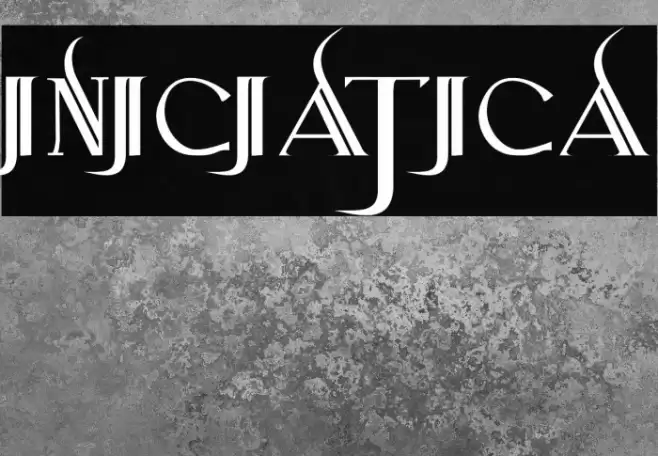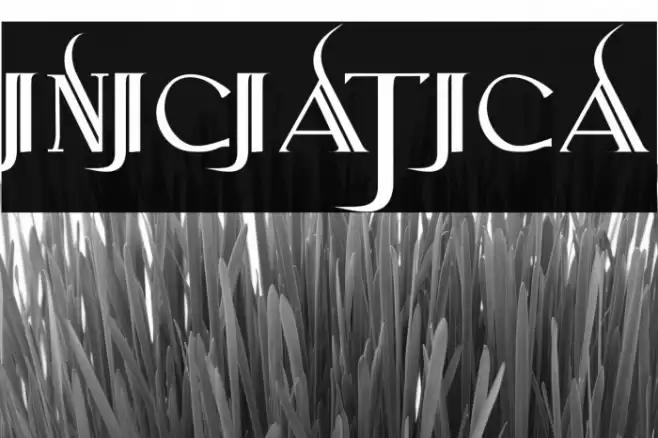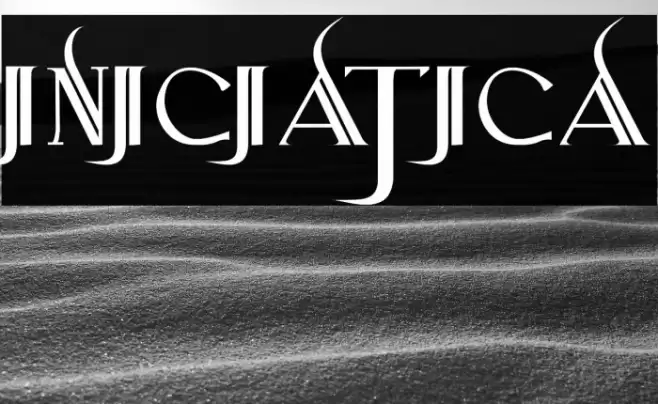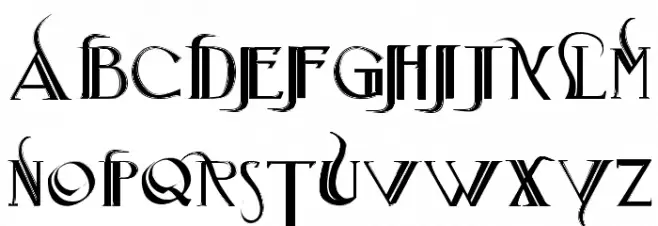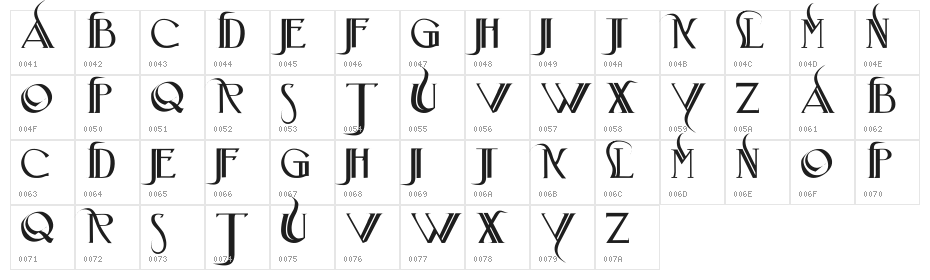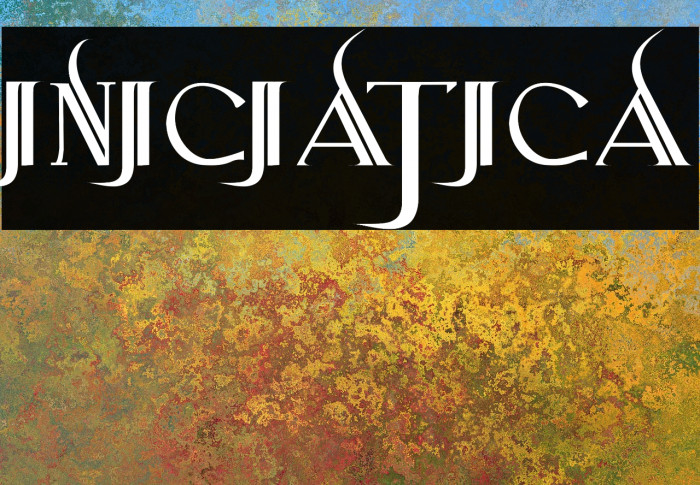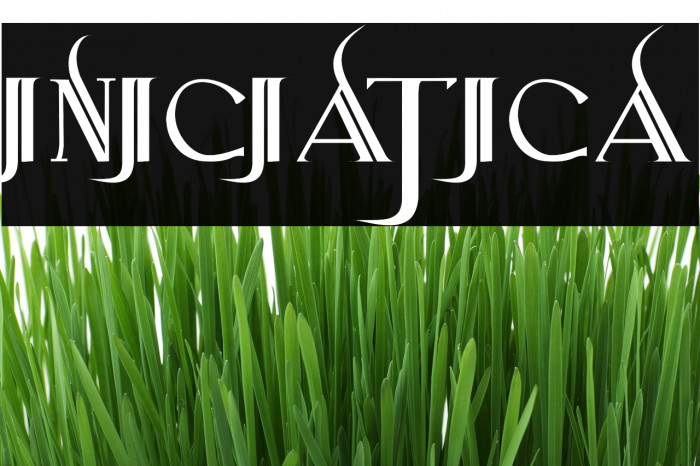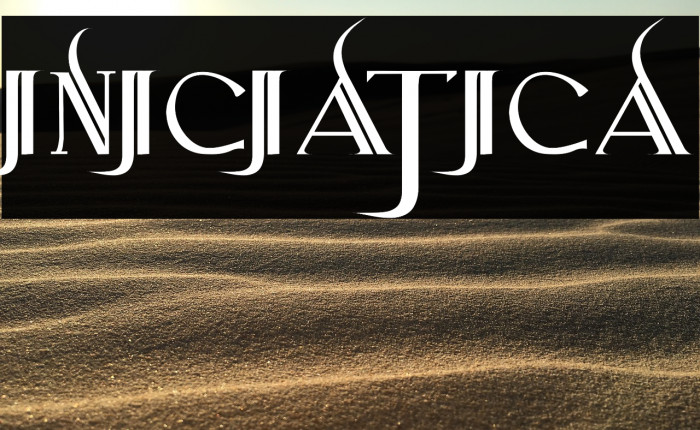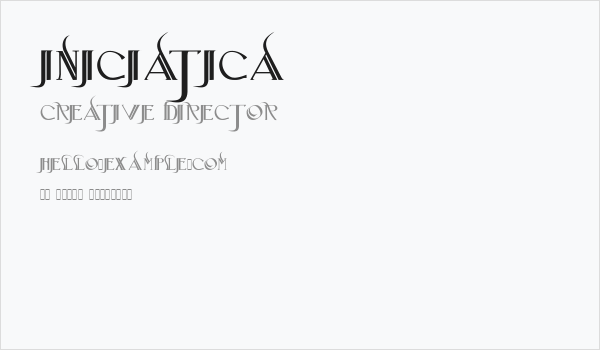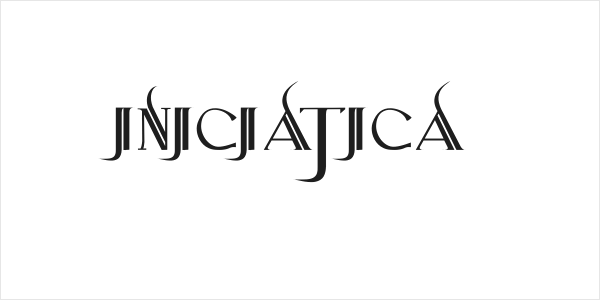
Iniciatica Font
Iniciatica Description
This font features a unique blend of modern and vintage styles, characterized by its decorative and intricate letterforms. The uppercase letters exhibit a striking design with elongated serifs and artistic flourishes, giving each character a distinct personality. The lowercase letters maintain a consistent style, complementing the uppercase with their own subtle curves and embellishments. The numerals and special characters are crafted with the same attention to detail, ensuring a cohesive look across all glyphs. This font's high contrast in stroke thickness adds to its dramatic appearance, making it ideal for eye-catching designs.
A decorative font with intricate serifs and high contrast, blending modern and vintage styles from Uncategorized fonts.
- Proposed Projects: Ideal for branding, logo design, book covers, and any project requiring a dramatic and artistic touch.